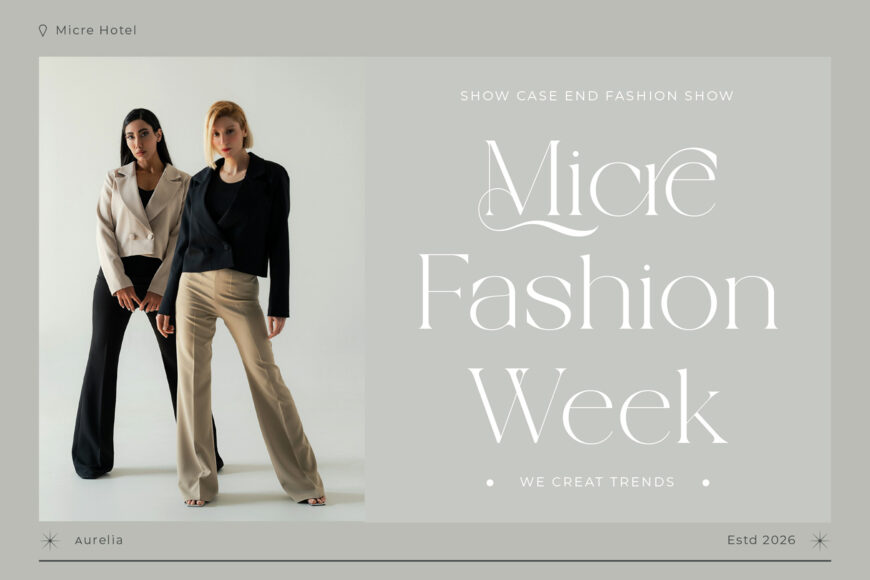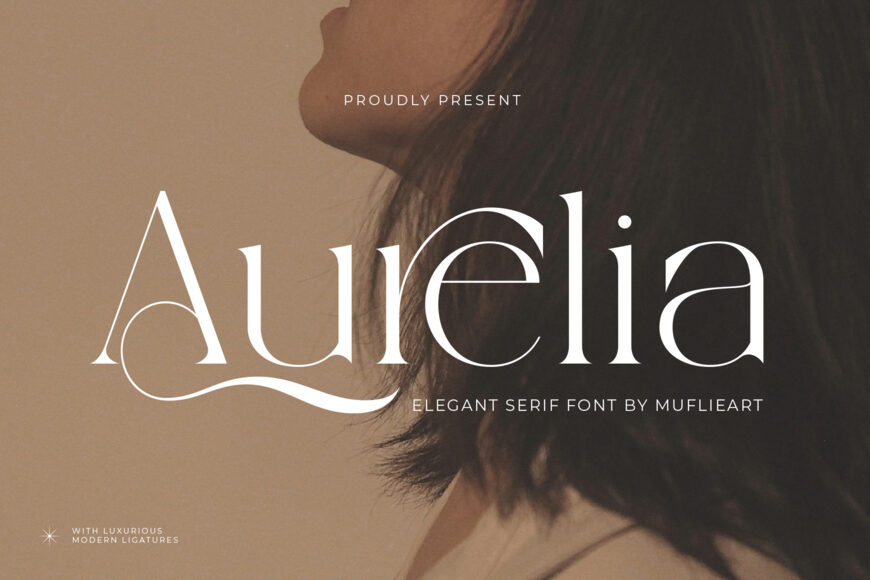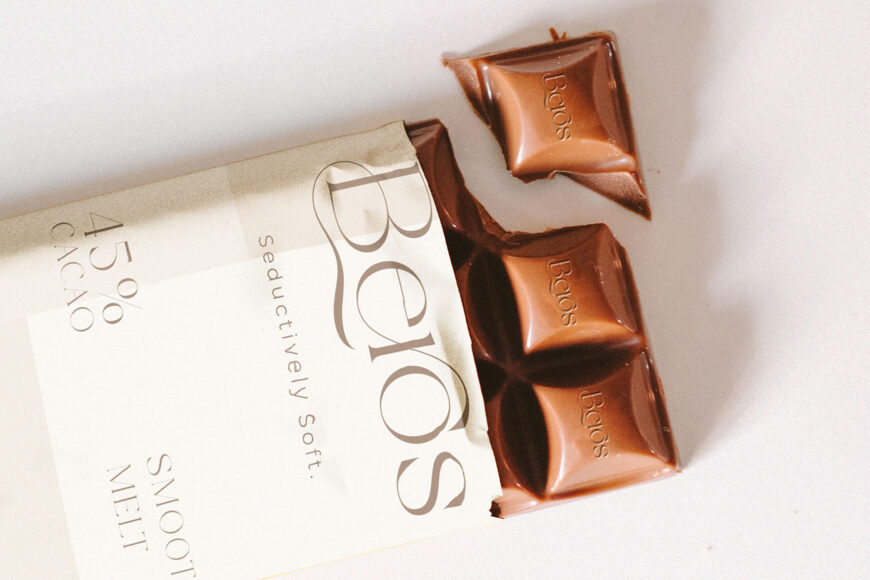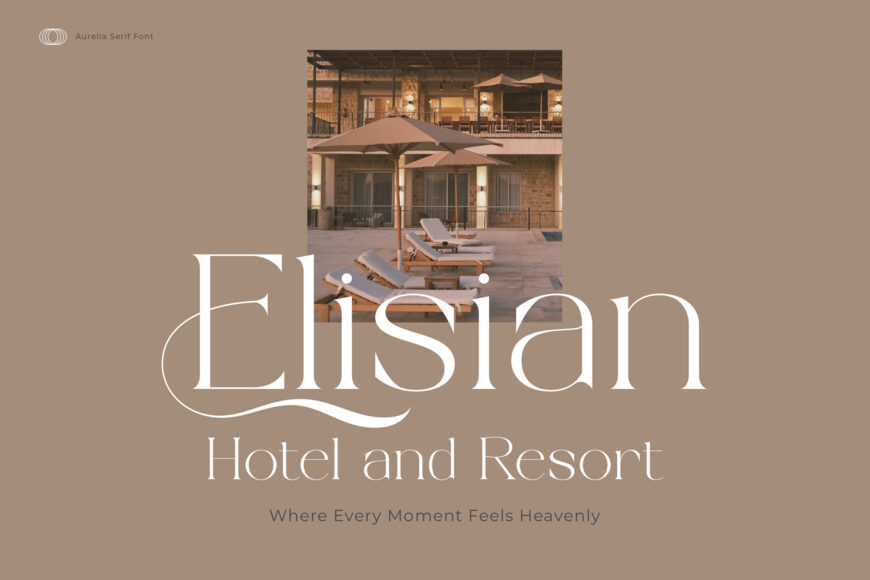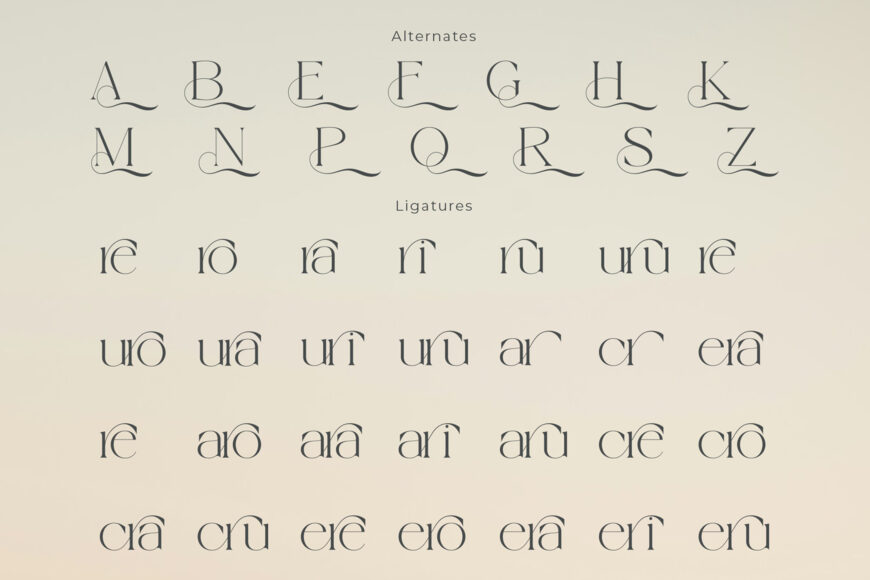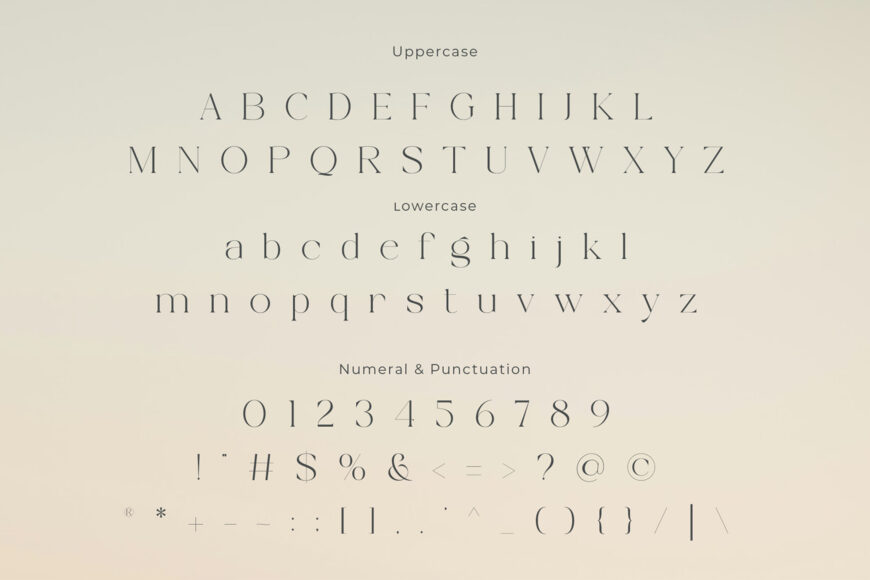
Aurelia Font
Introducing Aurelia, an elegant, beautiful, and modern Serif. With its modern and minimalist look, Aurelia brings a luxurious, classy, ​​and clean style to your projects such as websites, modern logos, brand identities, social media quotes, wedding stationery, magazines, and more!
Aurelia features unique and classy capital letters A to Z and also comes with unique alternates and ligatures making Aurelia a beautiful font that can be customized for various projects and jobs you want. Aurelia is perfect for: logos, brands, wedding invitations, business cards, greeting cards, posters, magazines, social media, agenda prints, and websites.